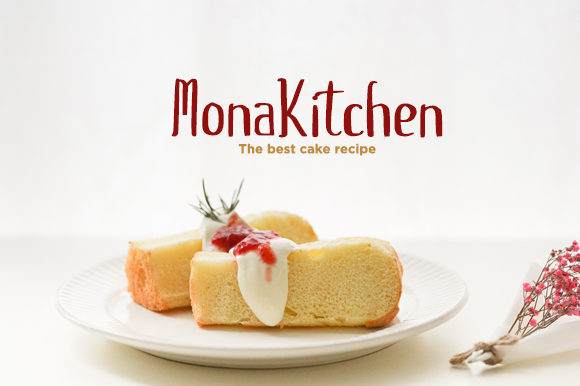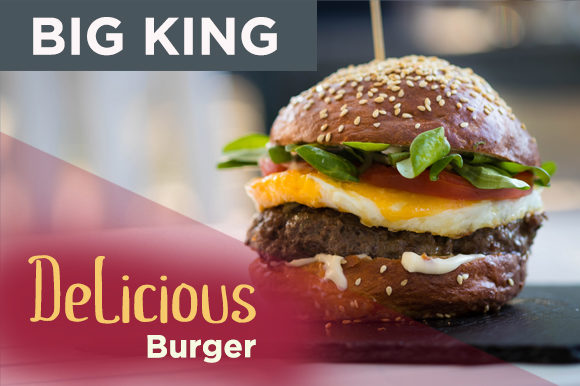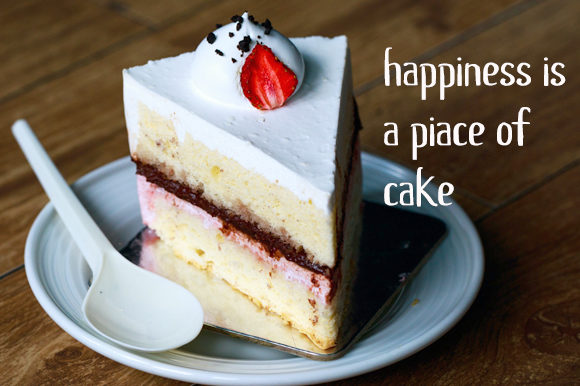
Dorprize Font
About Dorprize Font
Dorprize is a simple and neat handwritten font. Not too thin and not too thick, balanced and varied, Dorprize was designed to enhance the beauty of your projects.